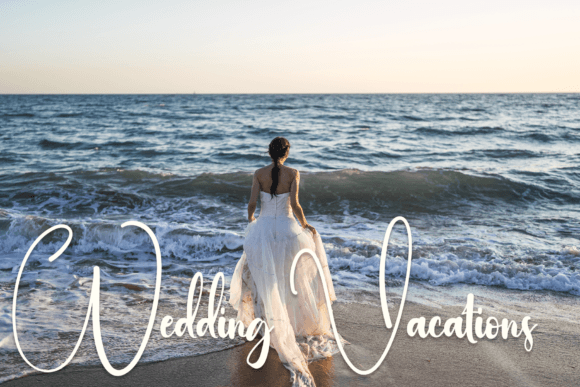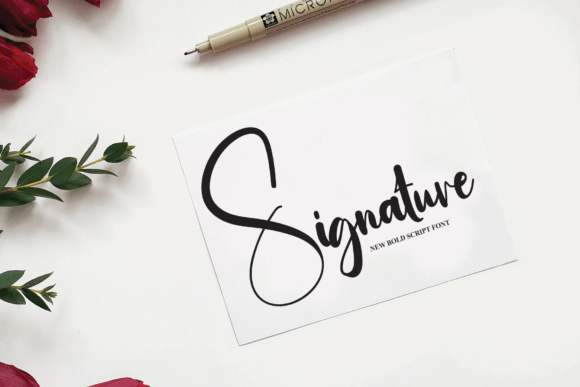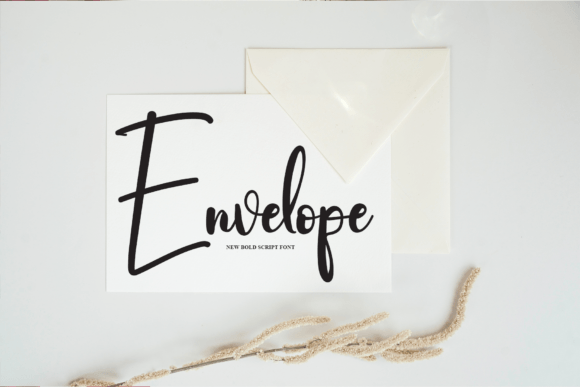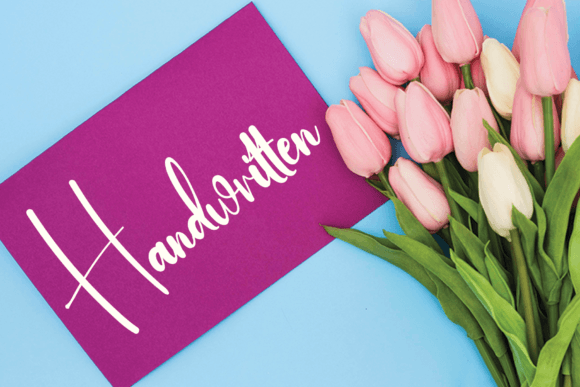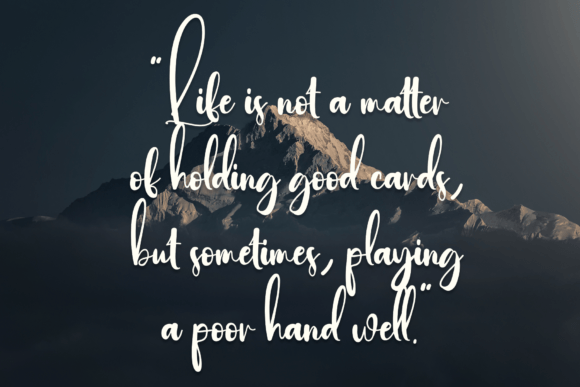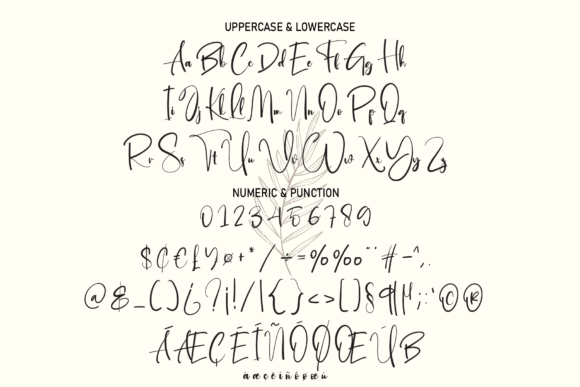
The Astrography Font: A Charming and Elegant Addition to Your Designs
I’ll never forget the time I was working on a wedding invitation project, and my client asked me to add a touch of elegance and whimsy to the design. I scoured the internet for the perfect font, and that’s when I stumbled upon Astrography. I was immediately drawn to its charming and elegant feel, and I knew it was exactly what I needed. In this article, I’ll share my experience with Astrography, its features, and how to make the most of this beautiful font.
A Personal Review of Astrography
- ✨ Elegant and charming feel that’s perfect for wedding invitations, thank you cards, and other designs that require a handwritten touch
- 🌈 Beautifully crafted with attention to detail, making it perfect for designs that require a personal touch
- 🤔 Limited availability of certain glyphs and stylistic alternates, which may require some creative workarounds
- ⚠️ May not be suitable for designs that require a bold or heavy font, as Astrography is more on the elegant and refined side
The Backstory of Astrography
According to the designer, Astrography was inspired by the old-world elegance of vintage astrology charts. The designer wanted to create a font that would evoke a sense of mysticism and wonder, while still being highly legible and versatile. The result is a font that’s both elegant and charming, with a unique personality that’s perfect for designs that require a handwritten touch.
Q: What is Astrography font?
A: Astrography is a elegant and charming script font that’s perfect for designs that require a handwritten touch.
Q: Can I use Astrography for my wedding invitation design?
A: Absolutely! Astrography is a popular choice for wedding invitations, and its elegant and charming feel makes it perfect for this type of design.